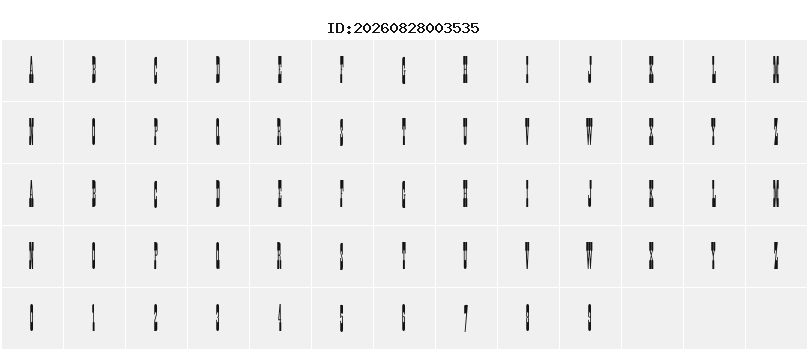
Tumbleweed SSi.ttf is a modern, elegant sans-serif font designed for ultimate readability and visual harmony. Perfect for branding, headlines, web design, and print materials.